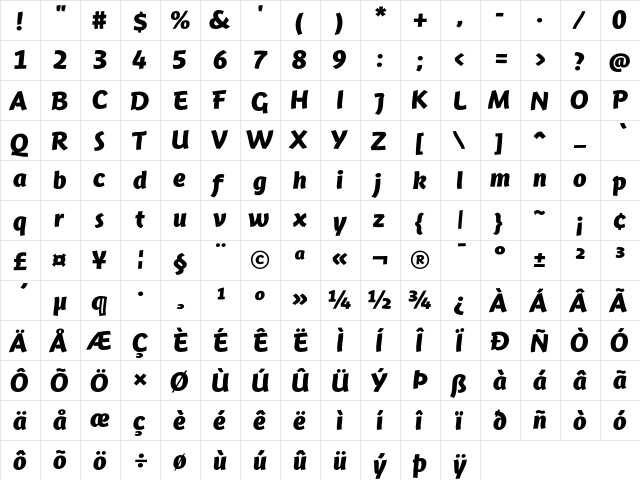
JambonoTF-Bold Regular Font Preview
JambonoTF-Bold Regular
JambonoTF-Bold Regular Font Details
Design Context for JambonoTF-Bold Typeface
JambonoTF-Bold offers clean, dependable letterforms without strong stylistic allegiance, making it a practical choice for designers who need flexibility. The heavy weight commands attention and anchors typographic hierarchies.
Originally released in 2002, this typeface is available in OpenType (OTF) format.